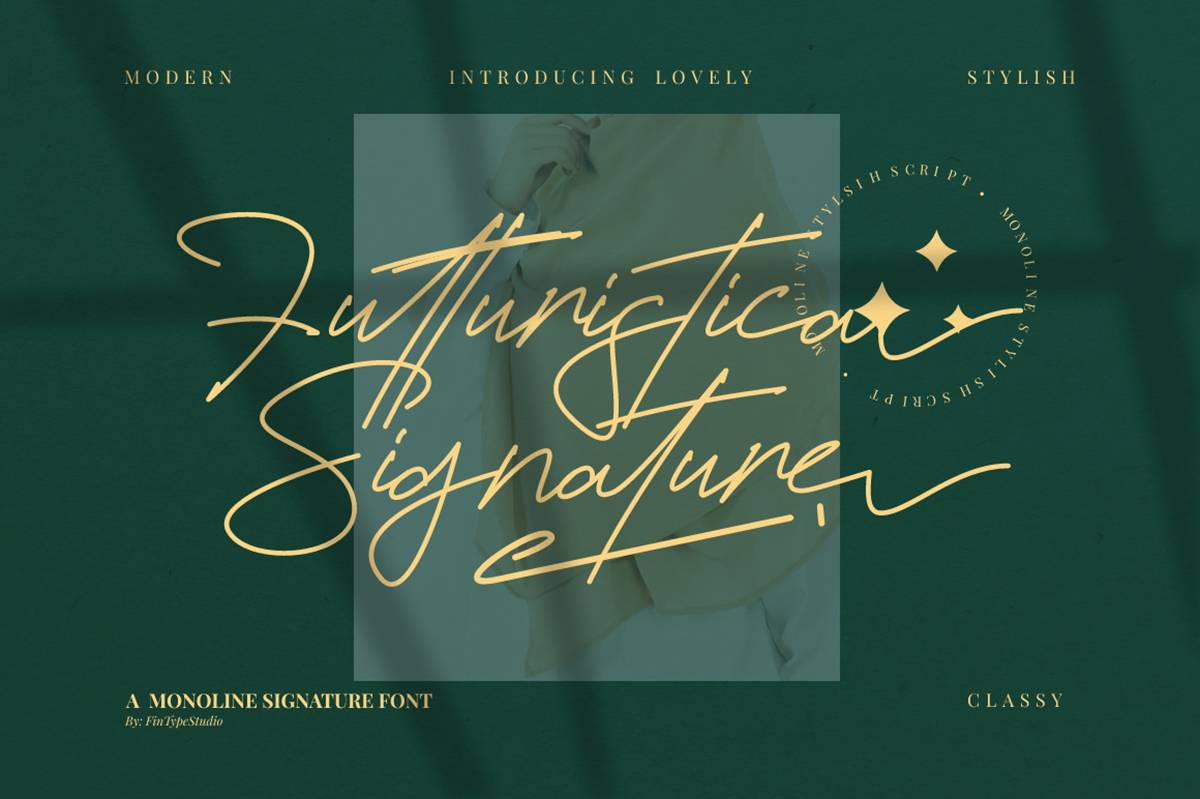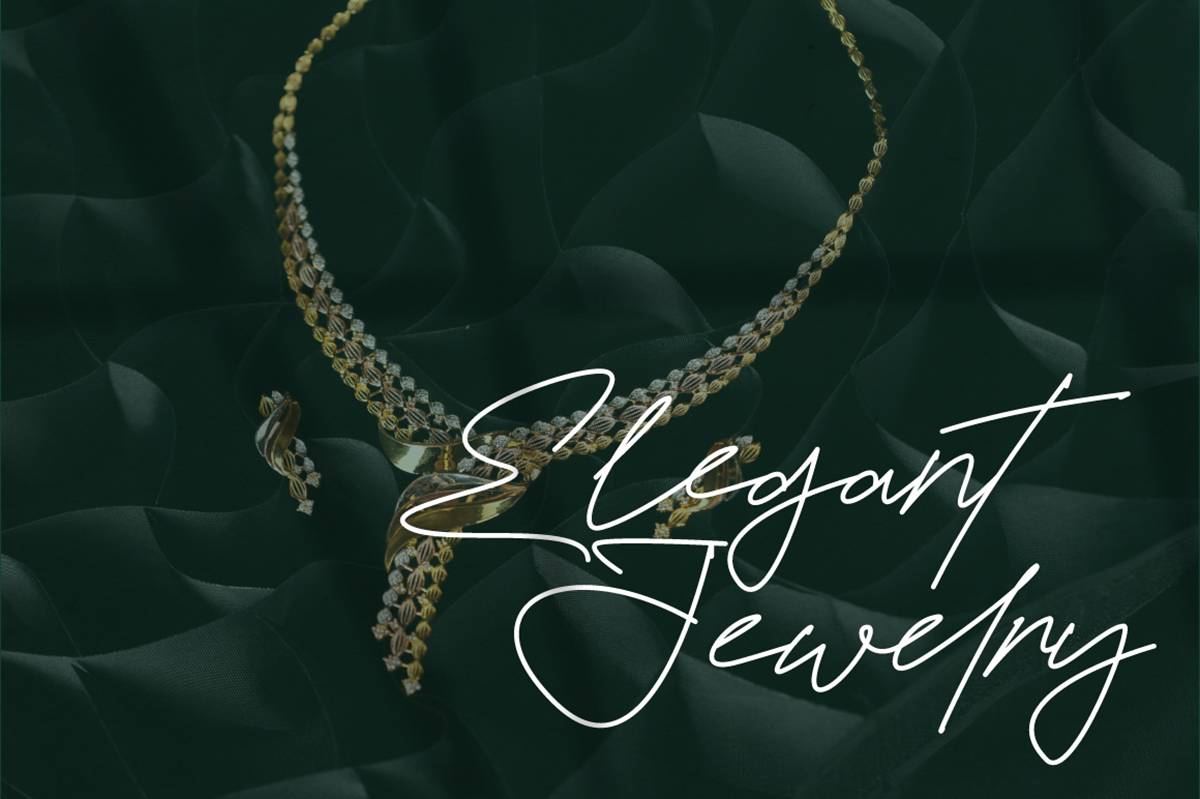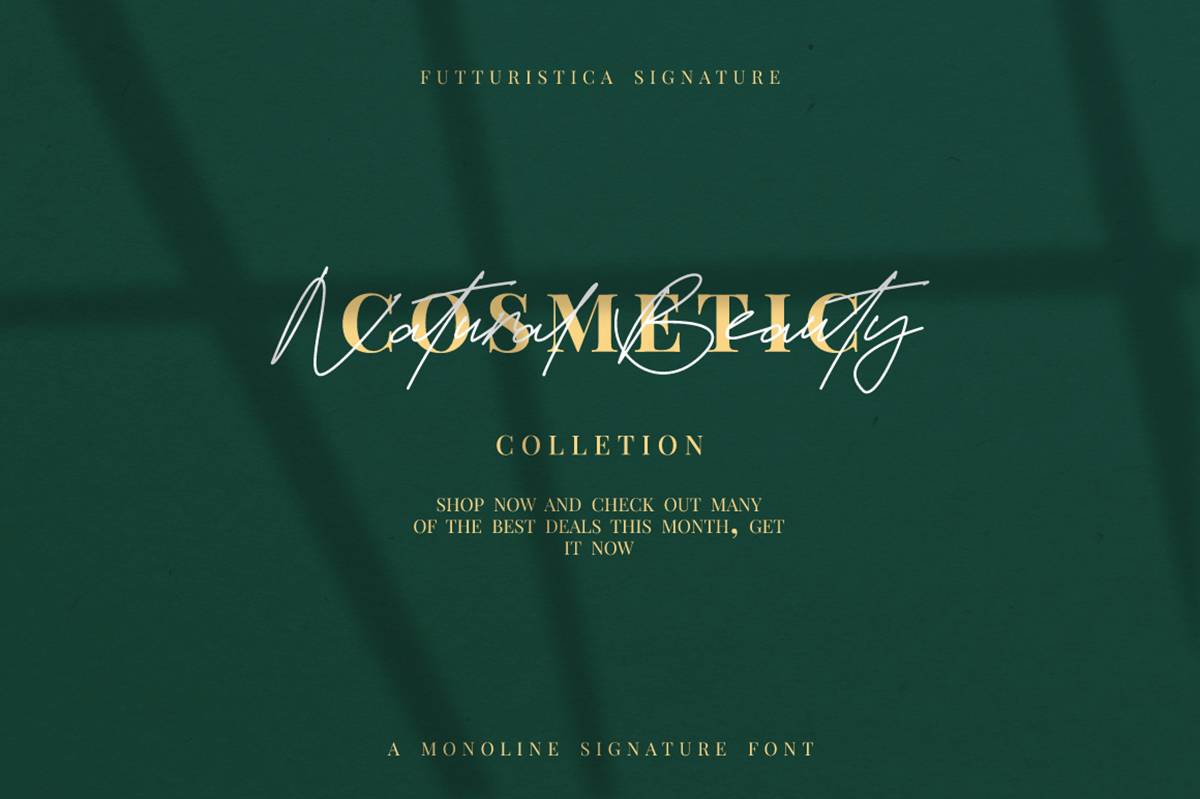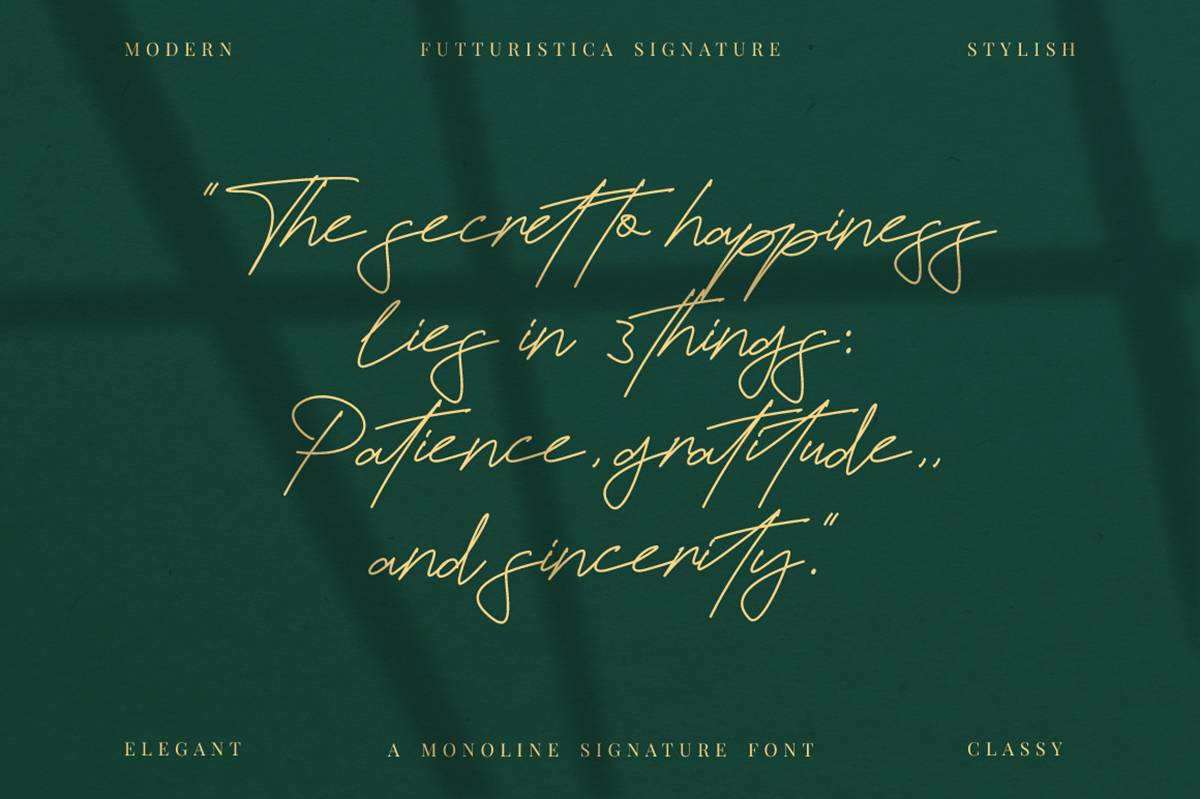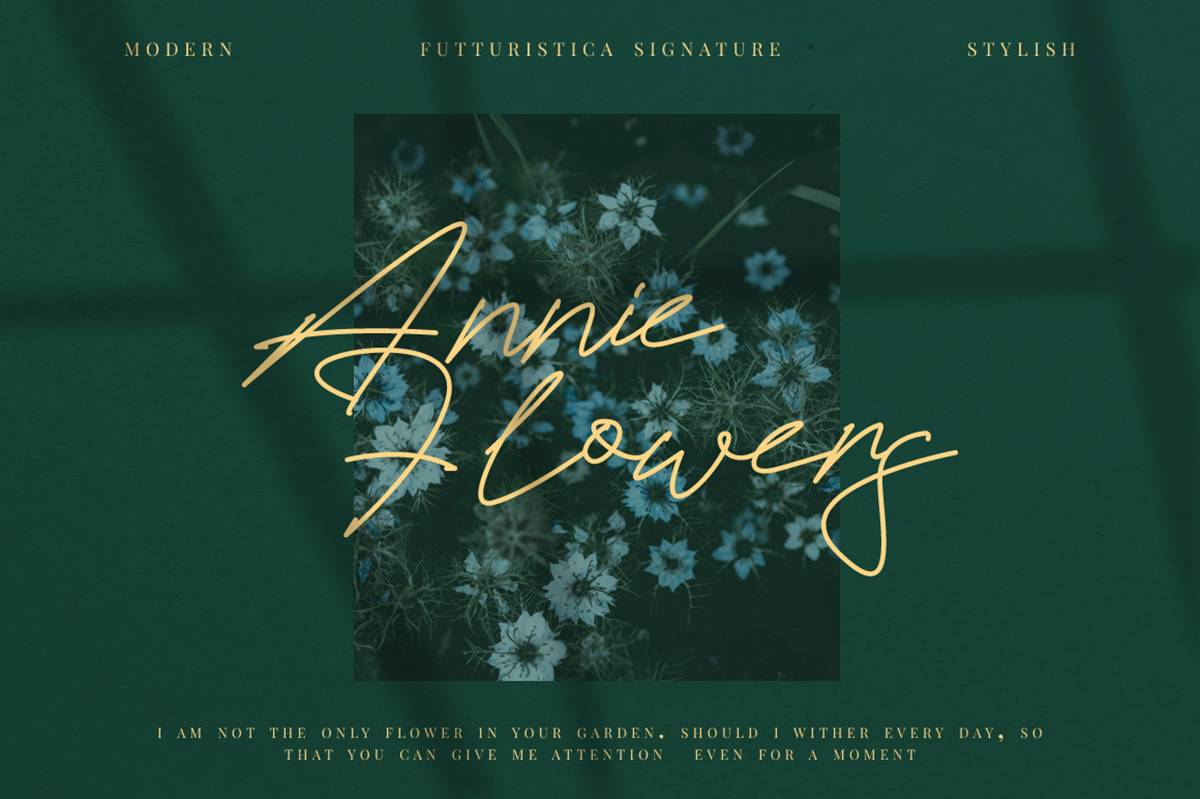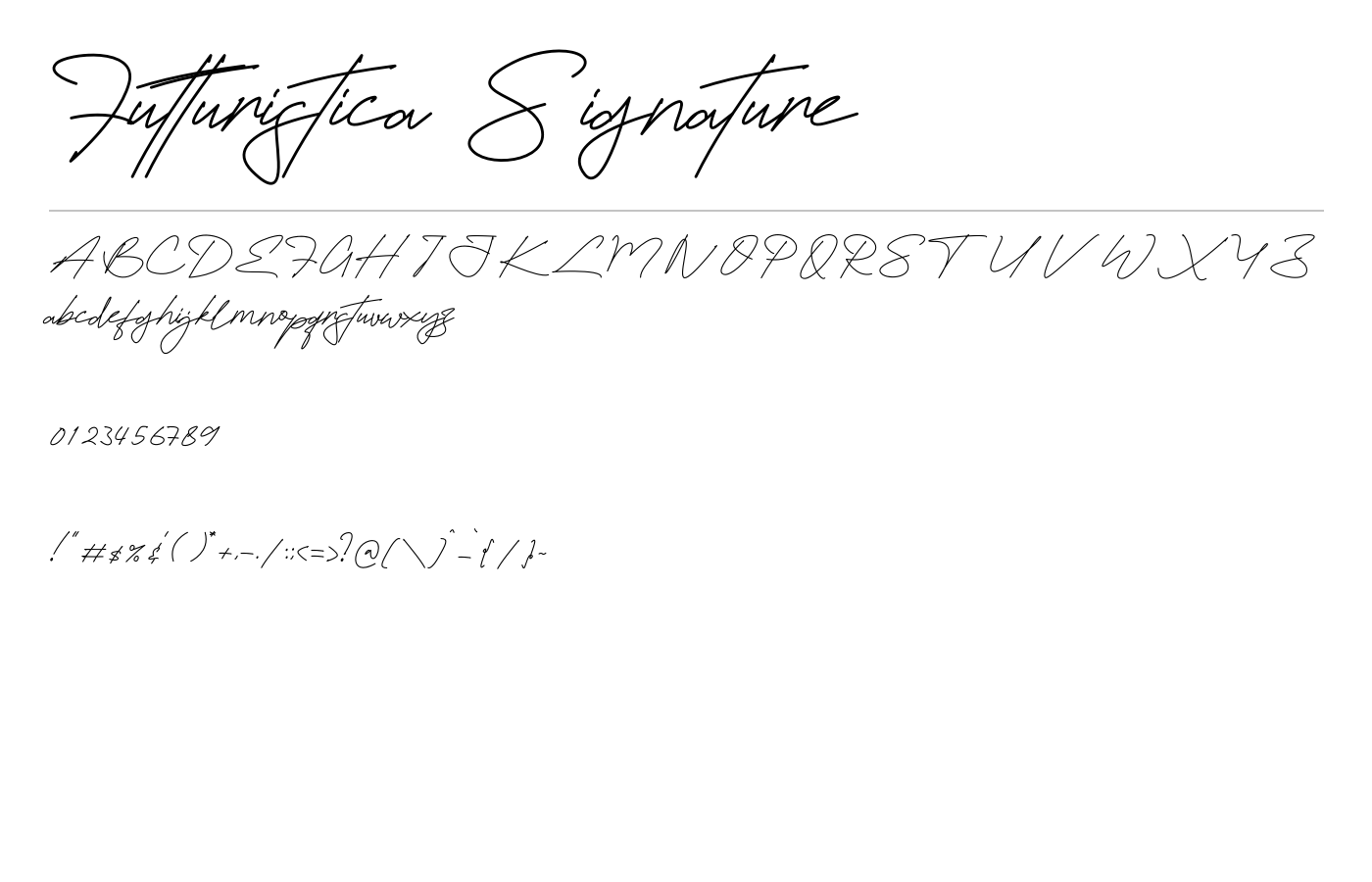
Futturistica Signature is a delicate, handwritten script font that captures an elegant and personal touch with its thin, flowing strokes and natural, slightly irregular letterforms. Its light weight and airy spacing make it ideal for sophisticated branding, fashion, and signature-style logos where a refined yet approachable feel is desired. This font works beautifully for adding a modern, stylish flair to invitations, editorial designs, and creative packaging.
Futturistica Signature Font
About Futturistica Signature Font
| Font family | Futturistica Signature Font |
| Designer | FinTypeStudio |